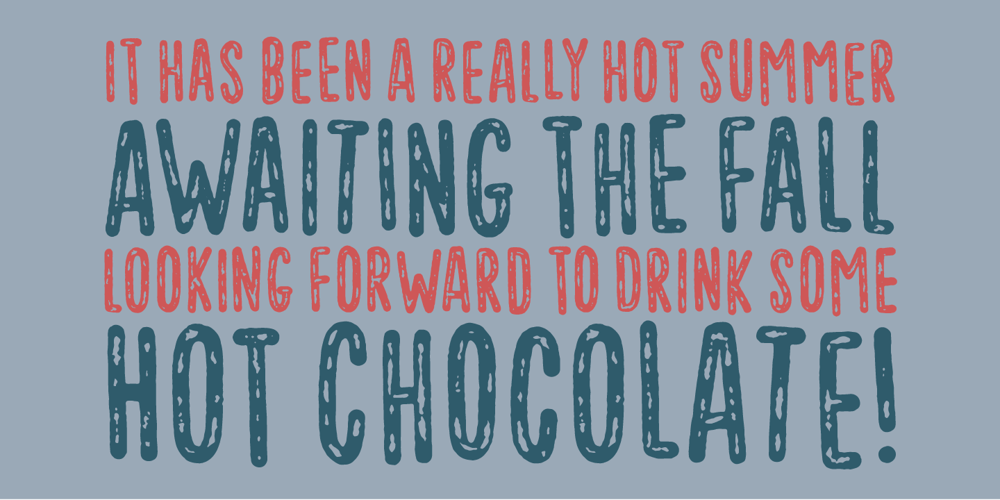
Vigtigper
Vigtigper font
Vigtigper Font Family was designed by Jakob Fischer and published by PizzaDude.dk. Vigtigper contains 4 styles and family package options. Contextual alternates, Swashes and Small Caps – in both worn and clean versions!